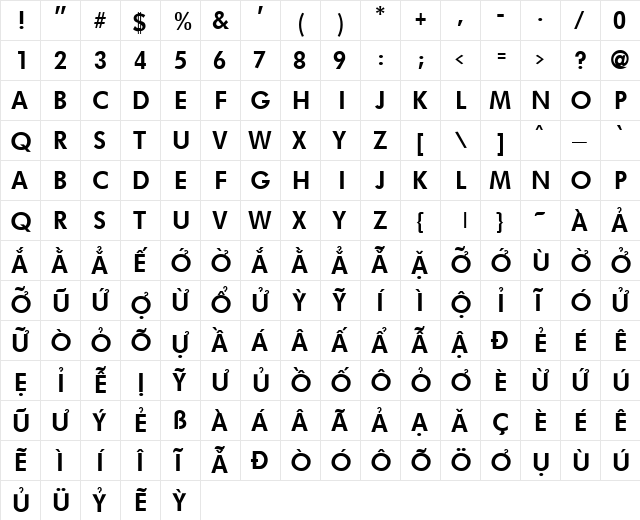
VPS Ha Noi Medium Hoa Bold
Design Context for VPS Ha Noi Medium Hoa Typeface
VPS Ha Noi Medium Hoa is a composed and adaptable typeface that performs quietly and consistently across a wide range of design contexts. Its bold stroke weight gives it real presence on the page.